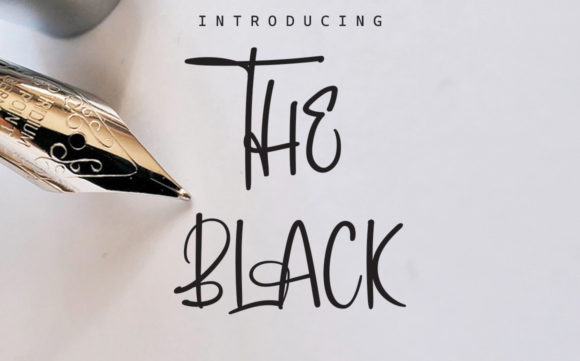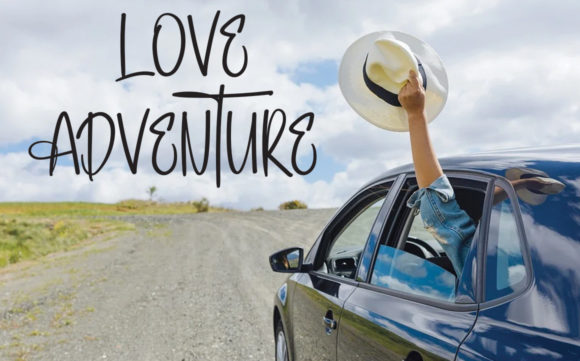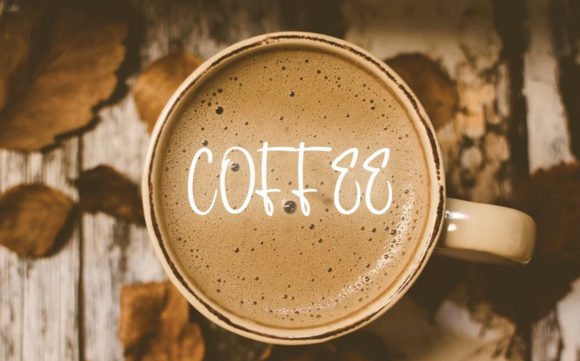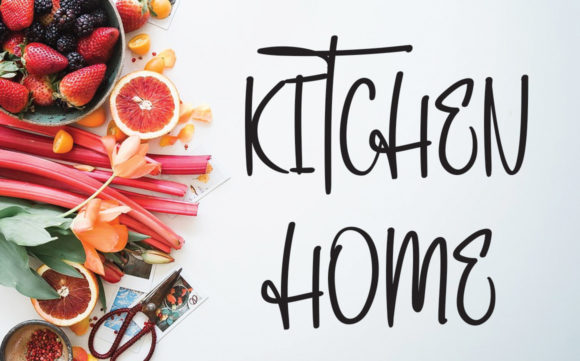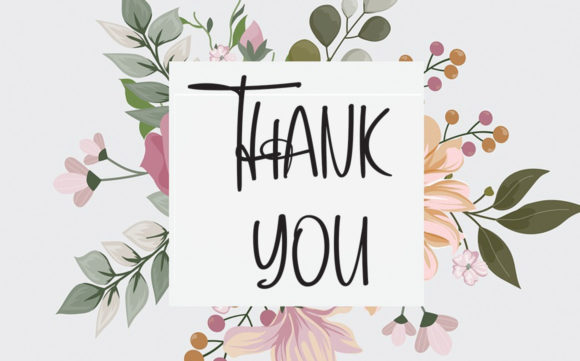
The Black Font
About The Black Font
The Black is a beautiful and flowing handwritten font. Use it for wall displays, wedding invitations, social media post logos, advertisements, product packaging, product designs, labels, photography, watermarks, invitations, stationery, and any project that requires impressive typography.